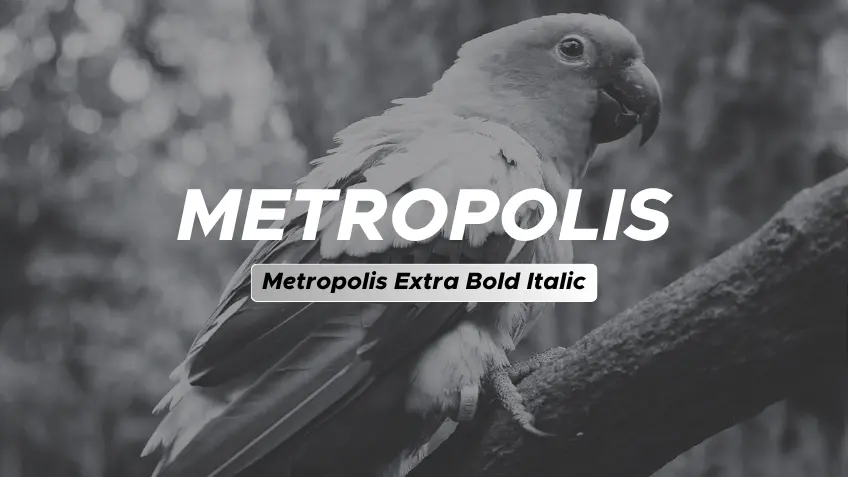
Metropolis Extra Bold Italic
Metropolis Extra Bold Italic Font
The font Metropolis Extra Bold Italic, designed by Chris Simpson, falls under the Sans Serif category & Metropolis font family. Its smooth, flowing letterforms make it a versatile choice for projects that require both elegance and readability. Metropolis is particularly well-suited for Web Design, Headlines and Display Text, Print Design, Branding and Corporate Identity and UI/UX Design. With its balance of simplicity and decorative appeal, this font brings a polished touch to both personal and professional designs.